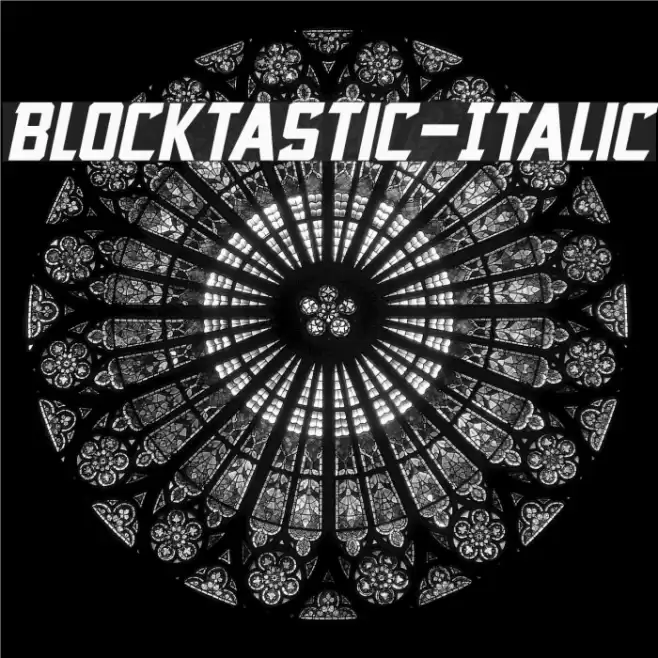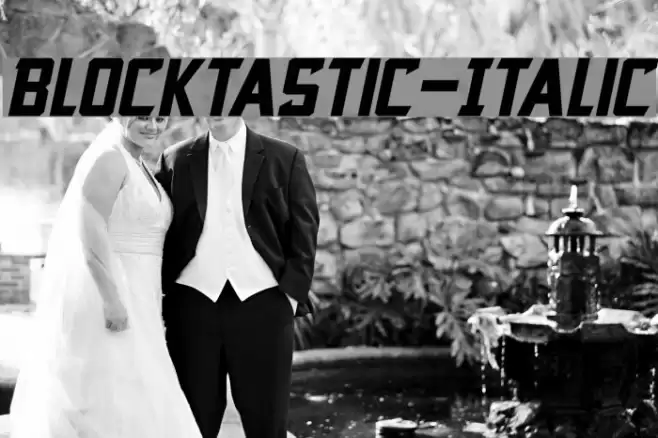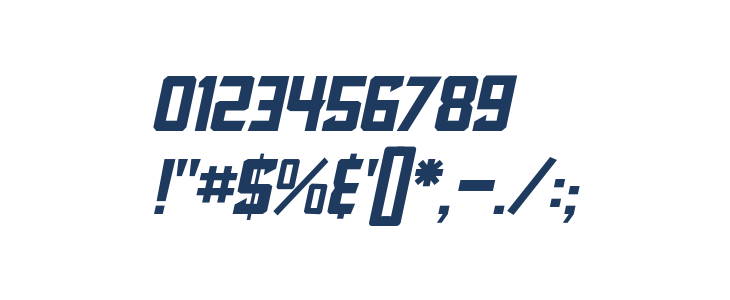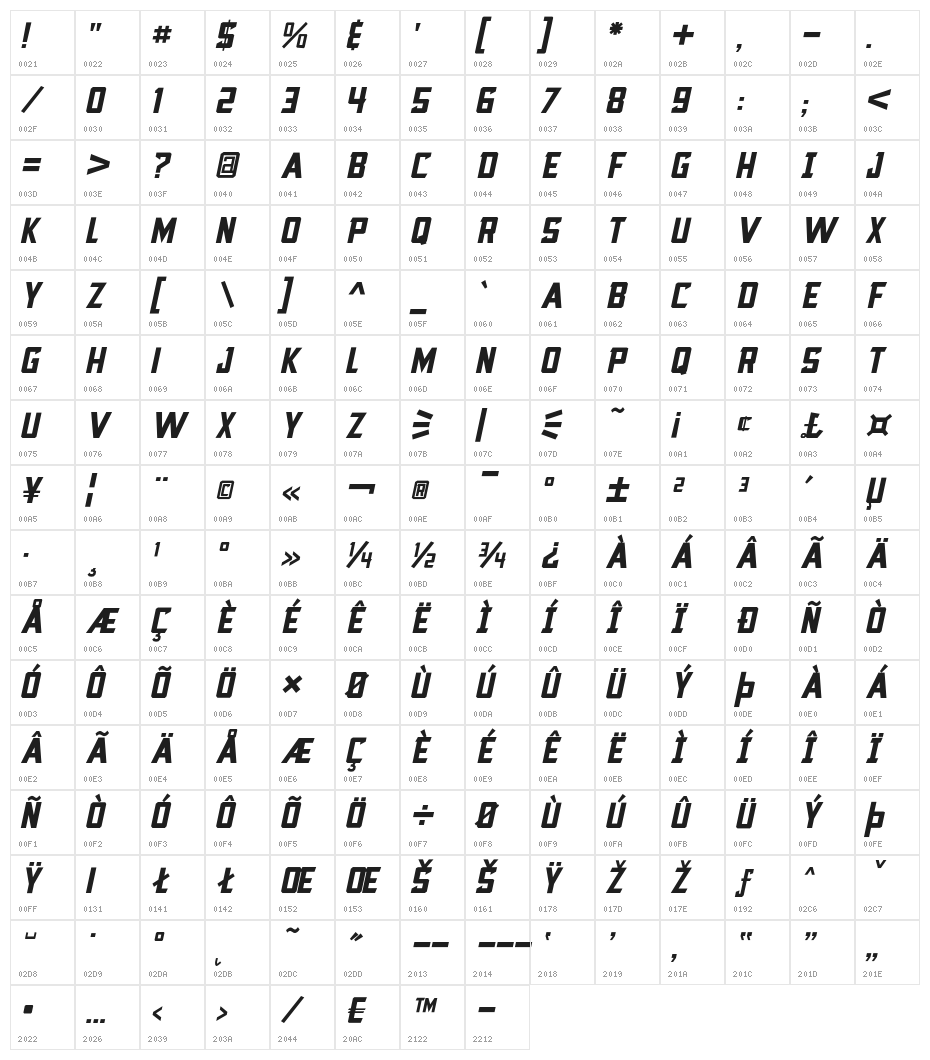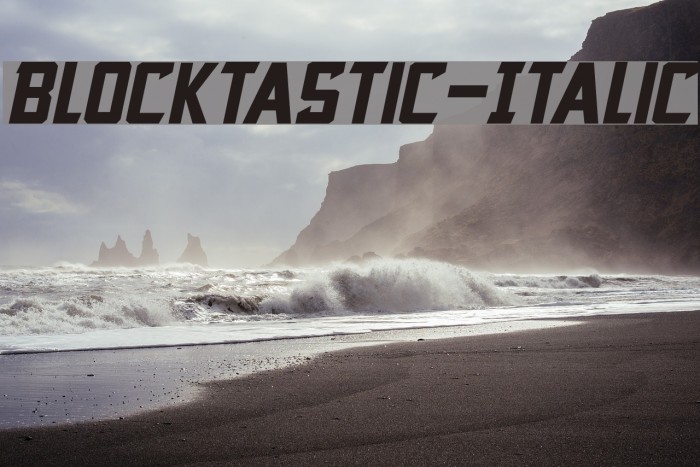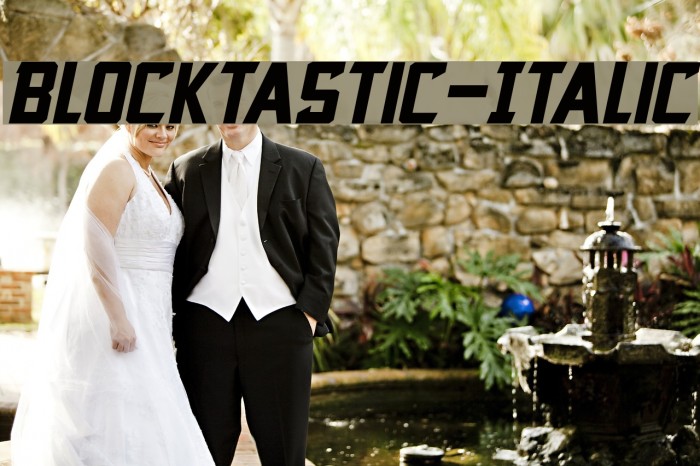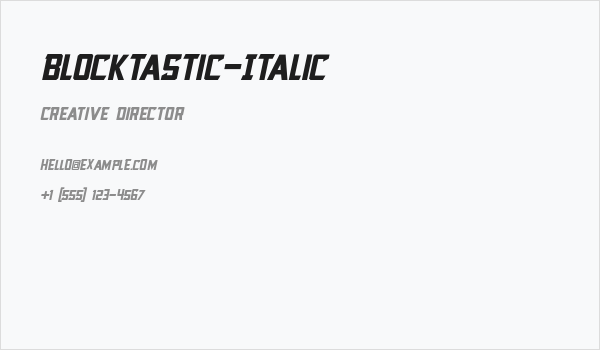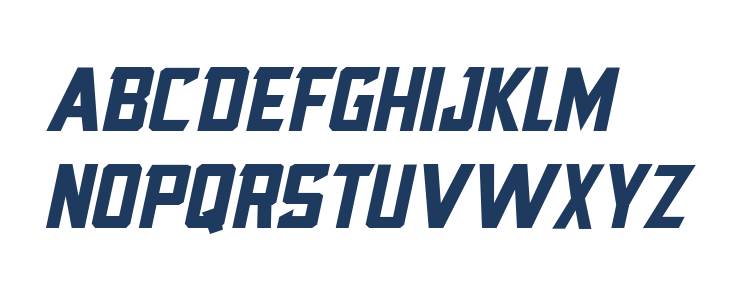
Blocktastic-Italic Font
Blocktastic-Italic Description
This font features a bold and dynamic style with a strong italic slant, giving it a sense of motion and energy. The characters are blocky and geometric, with sharp angles and a consistent stroke width that conveys a modern and assertive appearance. The uppercase and lowercase letters maintain a uniform height, enhancing readability while adding a unique flair. The numerals and special characters follow the same design principles, ensuring a cohesive look across all text elements. This font is well-suited for projects that require a bold statement or a futuristic aesthetic.
A bold, italic, and geometric font with a dynamic and modern style from Uncategorized fonts.
- Proposed Projects: Ideal for sports branding, tech-related designs, posters, and dynamic headlines.